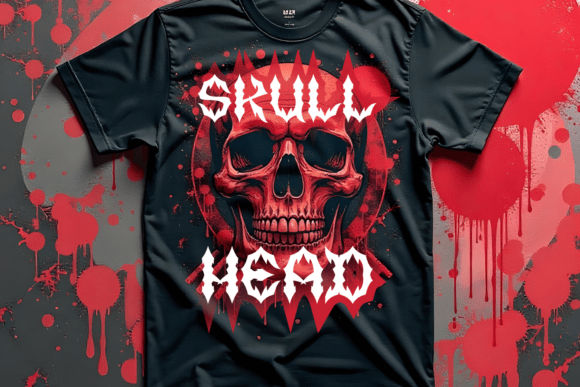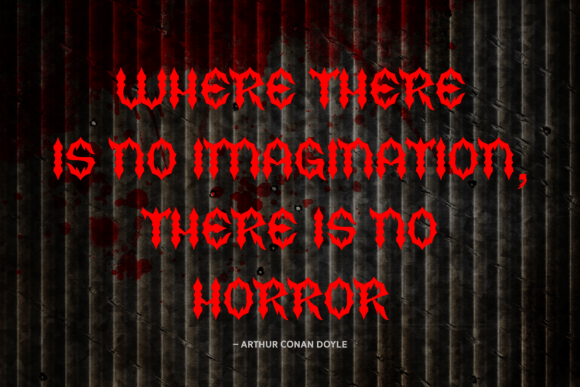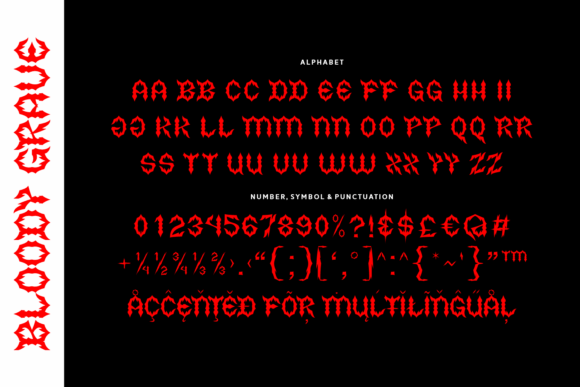
The Perfect Font for Your Dark Creations
Have you ever stared at a blank canvas, trying to conjure up the perfect design to capture the essence of a horror theme or a heavy metal song? It’s that moment of creative frustration that sparks the imagination, and for many designers, it’s exactly what leads them to discover the perfect font – the Bloody Grave Font.
This fierce and jagged blackletter font is specifically designed to evoke a sense of fear and drama, making it the perfect choice for projects that need a sinister tone. With its sharp edges and thorny structure, the Bloody Grave Font delivers maximum impact and visual fear factor, making it a valuable asset for designers who want to create a lasting impression.
Whether you’re designing game titles, haunted house flyers, or heavy metal merchandise, the Bloody Grave Font is a chilling choice for horror branding and gothic creative work. Its intense and dramatic style will undoubtedly leave a lasting impression on your audience, making it a must-have in your design arsenal.
Bloody Grave Font Key Features
- Font Family: Bloody Grave Font
- Unique Characteristics: Distressed, horror-themed, and hand-drawn design, perfect for creating spooky and eerie effects
- Font Style: Display, Casual, Script
Bloody Grave Font Review
Overall, I’m quite impressed with the Bloody Grave Font. It’s a unique and bold typeface that’s sure to grab attention. ✨
The font’s distressed texture and eerie aesthetic make it perfect for horror-themed projects or any design that needs a touch of macabre. The wide range of weights and styles also offer a lot of flexibility, allowing designers to customize the font to suit their needs. ✨
While the Bloody Grave Font is a great addition to any designer’s toolkit, there are a few limitations to consider. ⚠️
- The font may be too intense for more subtle designs, and could overpower the overall message.
- The distressed texture can sometimes be distracting, especially in smaller font sizes.
- The font may not be suitable for projects that require a more professional or corporate tone.
Despite its limitations, I think the Bloody Grave Font is a great choice for designers who want to add a touch of edginess to their projects. With its bold aesthetic and flexible customization options, it’s sure to be a hit with designers who are looking to create something truly unique.
For a spooky atmosphere, pair Bloody Grave Font with dark colors and bold text.
For a haunting effect, use Bloody Grave Font in combination with eerie backgrounds and subtle texture overlays.
For a dramatic effect, use Bloody Grave Font in headings and titles to draw attention.
Bloody Grave Font is ideal for horror-themed designs, spooky invitations, and dark-themed marketing materials.